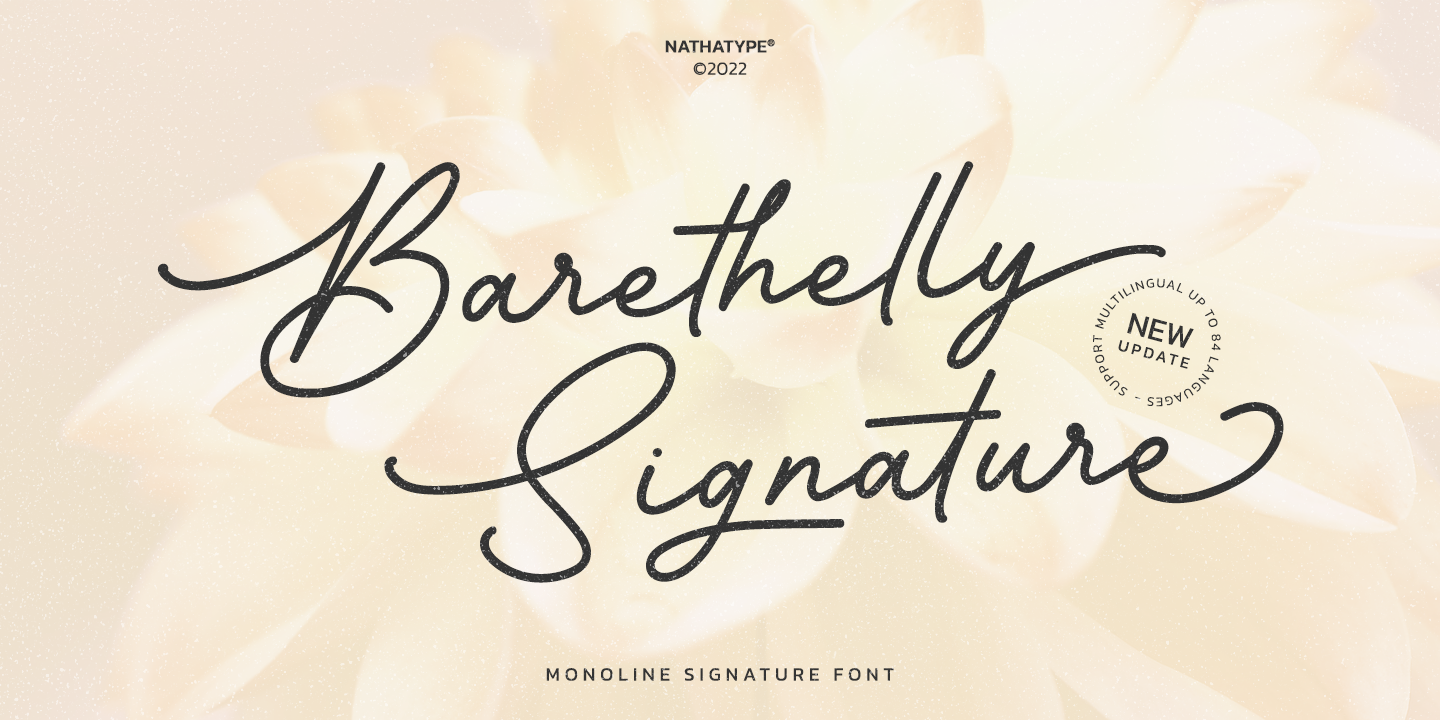
Barethelly Signature Font Free Download is a stylish, handwritten signature typeface that brings elegance and personality to your designs. With its flowing, natural strokes, it’s perfect for branding, invitations, logos, and any creative project needing a personal touch.
This font’s unique signature style enhances the authenticity and warmth of your work, making it stand out with a distinctive flair. Barethelly Signature Font Free Download ensures readability while maintaining the charm of handwritten art.
Add a sophisticated and personal feel to your projects with Barethelly Signature Font Free Download. If you want a font that speaks your style with grace and originality, Barethelly Signature is the perfect choice.